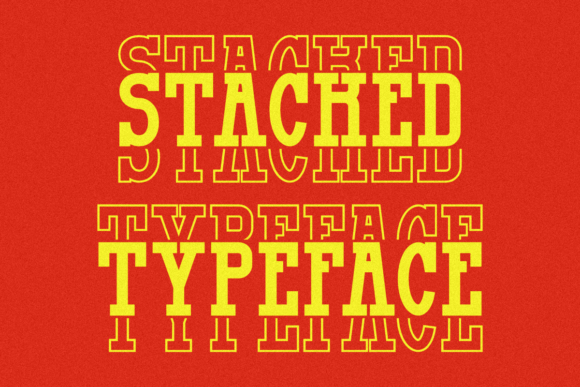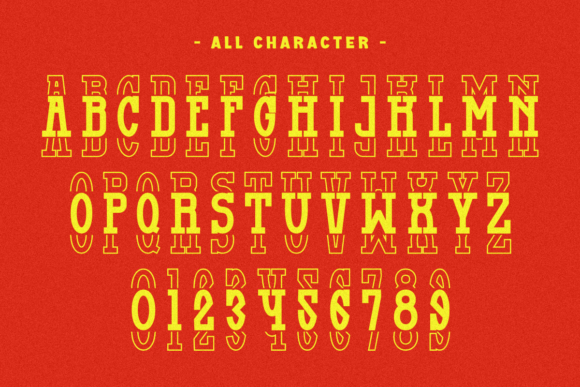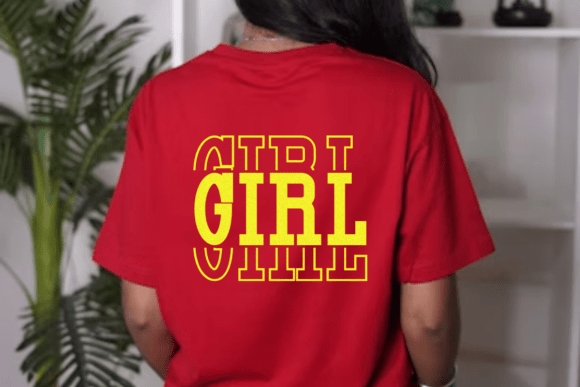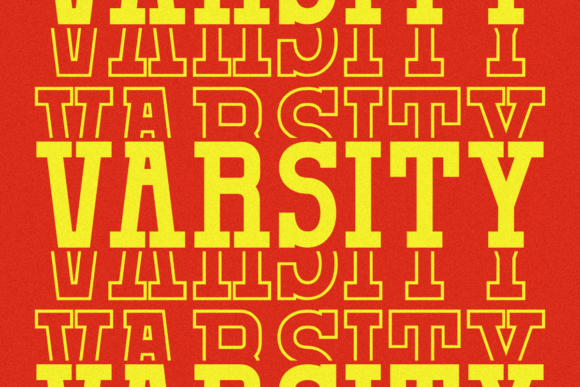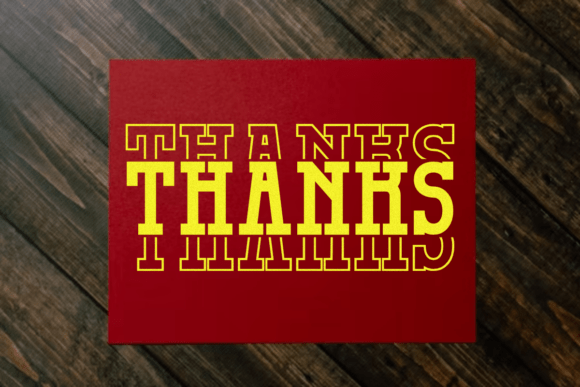
Famous Stacked Font: Bringing the Past to Life
Who among us hasn’t found inspiration in the iconic fonts of yesteryear? For designers, it’s not uncommon to stumble upon an old advertisement or movie poster and suddenly feel the urge to create something similar. That’s exactly what happened when the Famous Stacked Font was born – a dynamic Vintage Stacked Typeface designed to evoke the nostalgia of a bygone era.
With the Famous Stacked Font, you’ll have access to multiple styles that can be easily combined to create authentic, colorful, retro effects. Perfect for Apparel Merch, Poster Headlines, and Bold Nostalgic Branding, this layered display font is a game-changer for designers looking to add a touch of vintage charm to their work.
Famous Stacked Font Key Features
- Font Family: Famous Stacked Font is a unique display font designed to create visually striking stacked text effects.
- Character Set: Includes a wide range of characters, including uppercase and lowercase letters, numbers, and punctuation marks.
- Unique Characteristics: The font’s stacked design creates a dynamic, layered effect that adds visual interest to text-based designs.
Famous Stacked Font Review
I recently had the chance to work with the “Famous Stacked Font” and here’s my honest take on it.
- Unique design: The stacked font style is certainly eye-catching and can add a touch of elegance to any design.
- High-resolution glyphs: The font’s high-resolution glyphs ensure that the text remains crisp and clear, even at larger sizes.
- Customization options: The font offers a range of customization options, including various font weights and styles, making it suitable for a variety of design applications.
- Limited language support: The font’s language support is limited, which may be a concern for designers working with languages that require more complex character sets.
- Compatibility issues: I experienced some compatibility issues with the font in certain design software, which may be a problem for designers who use a range of different tools.
Overall, I think the “Famous Stacked Font” has some great qualities, but its limitations may make it less suitable for certain design applications. If you’re looking for a unique and elegant font for a specific project, it may be worth considering. However, if you’re working with a range of different languages or software, you may want to explore other options.
The Famous Stacked Font is ideal for creating eye-catching headings and titles. Use it for logos, branding materials, and social media graphics to add a touch of sophistication. You can also use it for creating visual interest in presentations and documents.